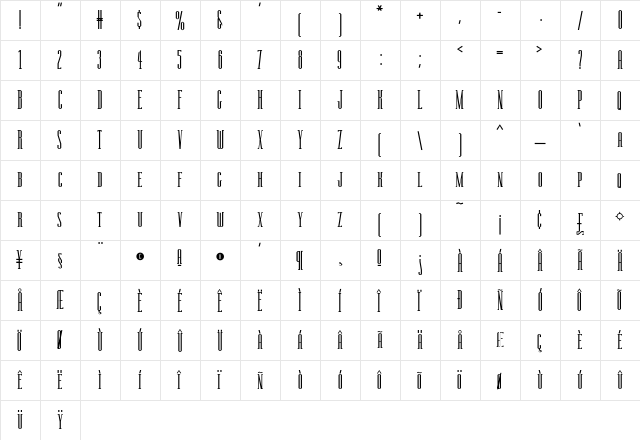
RSManzanita Regular
Design Context for RSManzanita Typeface
RSManzanita offers clean, dependable letterforms without strong stylistic allegiance, making it a practical choice for designers who need flexibility.
Pro Tip: Use RSManzanita in both headline and body roles to test its range before committing to a single application.